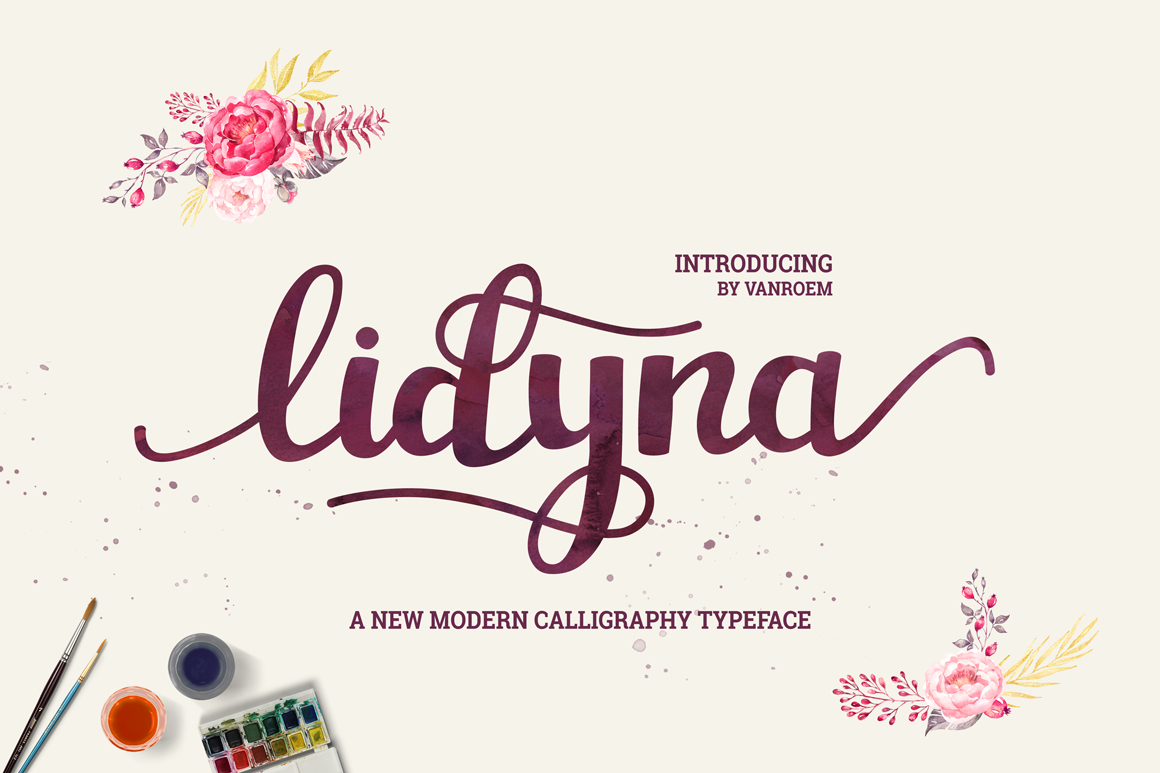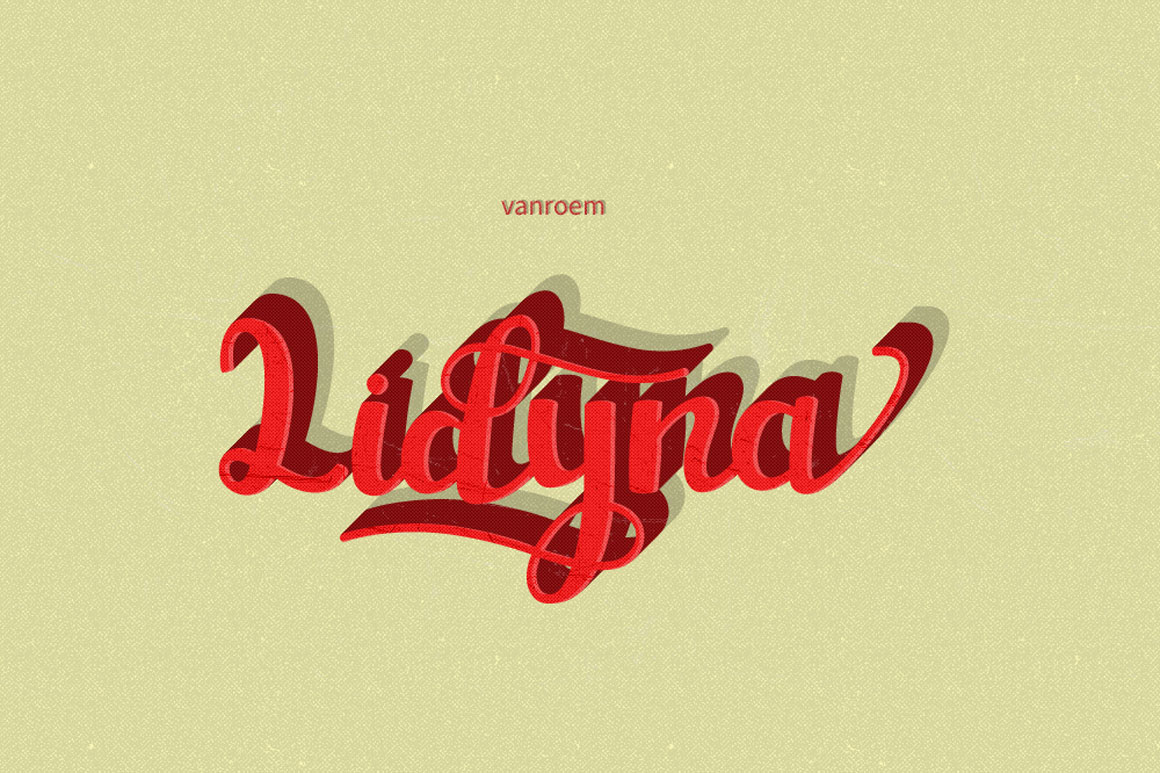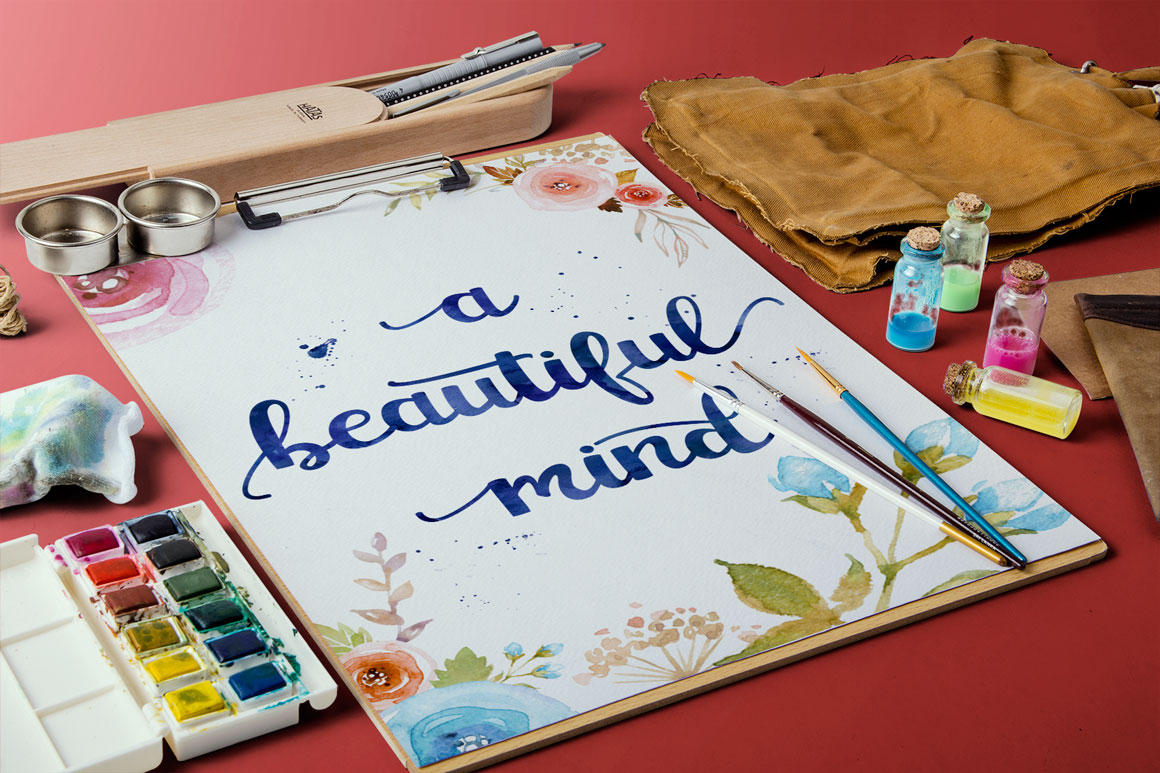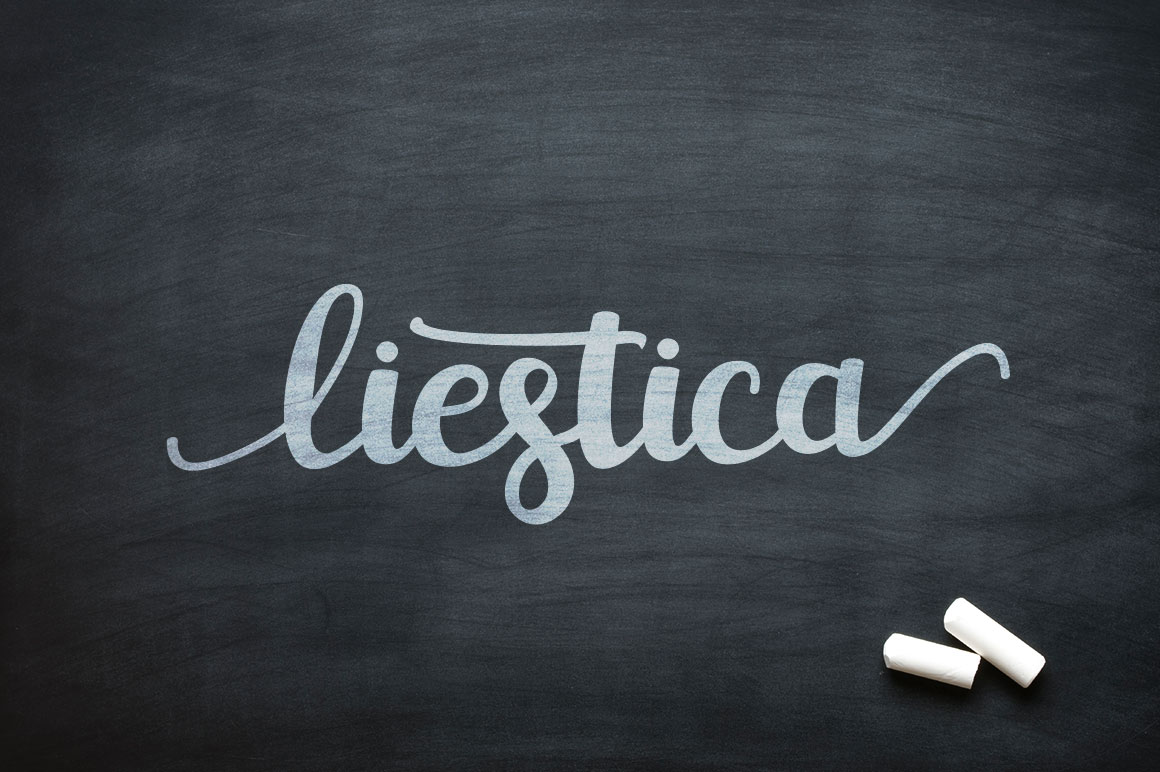
Lidyna Font
About Lidyna Font
The Lidyna Script is a fresh, modern calligraphic typeface. It’s elegant and has a dancing baseline.
This beautiful font combines brush lettering with traditional hand writing. It’s great for (personal) branding and many other types of projects.